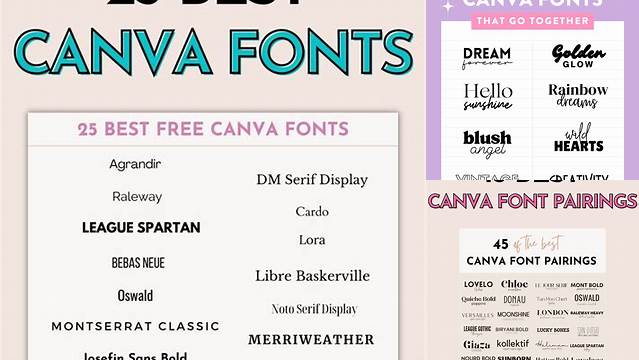
Best Free Canva Font Pairings For Stunning Designs
Hey guys! Choosing the right fonts can feel like a daunting task, especially when you're aiming for that perfect aesthetic in your designs. Canva, being the amazing design platform it is, offers a plethora of fonts, but the real magic happens when you pair them up beautifully. So, let's dive into the world of free Canva fonts and explore some fantastic combinations that will elevate your designs from meh to marvelous!
Why Font Pairing Matters
Font pairing is crucial because it sets the tone and readability of your design. Think of fonts as the voice of your message. You wouldn't want a serious message delivered in a playful font, would you? The right combination creates visual harmony, making your content appealing and easy to digest. A well-paired font combination can establish hierarchy, guide the reader’s eye, and reinforce the overall style and brand identity. Effective font pairing enhances the visual appeal of your design, making it more engaging and professional. When fonts work together harmoniously, they can evoke emotions and connect with the audience on a deeper level. So, it's not just about choosing pretty fonts; it's about creating a visual language that speaks volumes. For instance, pairing a bold, attention-grabbing font for headings with a clean, readable font for body text can create a clear visual hierarchy and improve the overall reading experience. Conversely, poorly paired fonts can clash and create visual dissonance, making your design look unprofessional and confusing. The key is to find fonts that complement each other, creating a cohesive and balanced look. This is why understanding the basics of typography, such as font classifications (serif, sans-serif, script, etc.) and their characteristics, is essential for effective font pairing. By mastering font pairing, you can ensure that your designs not only look visually appealing but also communicate your message effectively.
Understanding Font Classifications
Before we jump into specific pairings, let's quickly go over font classifications. Knowing these basics will make your font-pairing journey much smoother. Understanding font classifications is key to creating visually harmonious designs. Serif fonts, with their small decorative strokes (serifs) at the ends of letterforms, often convey a sense of tradition, authority, and elegance. Think of fonts like Times New Roman or Georgia – they're classic choices that work well in formal contexts and longer texts. Sans-serif fonts, on the other hand, lack these serifs and tend to appear more modern, clean, and minimalist. Arial, Helvetica, and Open Sans are popular examples. They are often favored for digital interfaces and shorter blocks of text because of their readability. Script fonts mimic handwriting and add a touch of personality and flair. These can range from elegant calligraphy to casual brushstrokes. However, script fonts should be used sparingly, mainly for headings or decorative elements, as they can be difficult to read in large blocks of text. Display fonts are designed to be eye-catching and unique, often used for headlines and logos. They come in a wide variety of styles, from bold and impactful to quirky and playful. Like script fonts, display fonts are best used in moderation to make a statement without overwhelming the design. Monospace fonts, where each character takes up the same amount of horizontal space, are often associated with technical and coding contexts. Courier New is a well-known example. While they have a niche use, they're generally not the best choice for general design purposes due to their limited readability in longer texts. By understanding these classifications, you can start to pair fonts that complement each other, creating visually appealing and effective designs. For example, pairing a serif font with a sans-serif font is a classic combination that provides contrast and visual interest. The serif font can be used for headings to draw attention, while the sans-serif font can be used for body text to ensure readability. This approach helps to establish a clear visual hierarchy and makes your content easier to digest.
Top Free Canva Font Pairings
Alright, let’s get to the good stuff! Here are some of my favorite free Canva font pairings that you can start using right away. These combinations are tried, tested, and guaranteed to make your designs pop. When selecting fonts, it's essential to consider the overall mood and message you want to convey. For a classic and professional look, pairing a serif font with a sans-serif font is a reliable choice. For example, Playfair Display (a serif font) paired with Montserrat (a sans-serif font) creates an elegant and readable combination. Playfair Display's sophisticated serifs make it perfect for headings, while Montserrat's clean lines ensure readability in body text. This pairing works well for business documents, invitations, and website content where a formal yet modern touch is desired. If you're aiming for a more modern and minimalist design, try pairing two sans-serif fonts. Oswald and Lato are a fantastic combination for this style. Oswald is bold and impactful, making it ideal for headings, while Lato is clean and versatile, working beautifully for body text and smaller details. This pairing is excellent for tech startups, blog designs, and presentations where clarity and simplicity are key. For a touch of personality and creativity, consider incorporating a script font. However, remember to use script fonts sparingly and pair them with a simple and readable font. Great Vibes (a script font) paired with Raleway (a sans-serif font) offers a beautiful contrast. Great Vibes adds a touch of elegance and flair, perfect for headings or decorative elements, while Raleway ensures the rest of your text remains easily readable. This combination is ideal for wedding invitations, greeting cards, and branding materials where a personal and stylish touch is needed. Another excellent pairing for a modern and readable design is Poppins and Open Sans. Both fonts are sans-serif, but they complement each other perfectly. Poppins is geometric and contemporary, working well for headings, while Open Sans is highly legible and versatile, making it a great choice for body text. This pairing is suitable for a wide range of applications, from website design to marketing materials, where clarity and a clean aesthetic are important. Remember, the best font pairing will depend on the specific design project and the message you want to convey. Experiment with different combinations and trust your eye to find what works best for you. Canva offers a fantastic platform for testing out different fonts, so don't be afraid to try new things and discover your personal favorites.
1. Playfair Display & Montserrat
This is a classic pairing that oozes elegance and readability. Playfair Display is a beautiful serif font that's perfect for headings, while Montserrat, a clean sans-serif, works wonderfully for body text. Think magazine layouts or sophisticated website designs – this combo is a winner. The Playfair Display and Montserrat pairing is a testament to the timeless appeal of combining a serif font with a sans-serif font. Playfair Display, with its high contrast and elegant serifs, exudes sophistication and is best used for headings and titles to capture attention. Its distinct character makes it ideal for designs that require a touch of class, such as wedding invitations, book covers, or luxury brand materials. On the other hand, Montserrat is a clean, modern sans-serif font that offers excellent readability, making it perfect for body text and smaller details. Its geometric design and even spacing ensure that the text is easy to read, even at smaller sizes. Together, Playfair Display and Montserrat create a visual hierarchy that guides the reader's eye, ensuring that the design is both visually appealing and easy to navigate. This pairing works exceptionally well in designs where a balance between elegance and readability is crucial. For example, in a website design, Playfair Display can be used for the main headings and call-to-action buttons, while Montserrat can be used for the body text and navigation menu. Similarly, in a print design, such as a brochure or a magazine, Playfair Display can be used for the main headlines, while Montserrat can be used for the article text and captions. The versatility of this pairing makes it a go-to choice for designers looking to create a polished and professional look. Moreover, the contrast between the serif and sans-serif fonts adds visual interest and prevents the design from looking monotonous. Playfair Display's decorative serifs bring a touch of tradition and sophistication, while Montserrat's clean lines provide a modern and minimalist contrast. This balance is key to creating a design that is both timeless and contemporary. In summary, the Playfair Display and Montserrat font pairing is a reliable choice for designers who want to create elegant and readable designs. Its versatility and visual appeal make it suitable for a wide range of applications, from web design to print materials. By leveraging the strengths of both fonts, designers can create a harmonious and visually striking design that effectively communicates the intended message.
2. Oswald & Lato
For a more modern and minimalist vibe, try Oswald and Lato. Oswald is bold and impactful, great for headings, while Lato is a super readable sans-serif perfect for body text. This pairing is sleek and professional. The Oswald and Lato pairing is a popular choice for designers aiming for a modern and professional aesthetic. Oswald, a bold sans-serif font, commands attention and is ideally suited for headings and titles. Its strong, geometric forms make it highly visible and impactful, ensuring that your main message stands out. Oswald's assertive character brings a sense of confidence and modernity to any design, making it a great option for businesses and brands that want to project a strong image. In contrast, Lato is a highly readable sans-serif font designed with clarity and versatility in mind. Its open forms and balanced letter shapes make it easy to read in a variety of contexts, from body text to captions and small details. Lato's neutral and friendly appearance ensures that it doesn't distract from the main message, while still maintaining a professional look. When paired together, Oswald and Lato create a harmonious balance between visual impact and readability. Oswald's boldness draws the eye, while Lato provides a comfortable reading experience, ensuring that the content is both engaging and accessible. This combination is particularly effective in digital designs, such as websites and presentations, where readability is paramount. For instance, on a website, Oswald can be used for the main headings and section titles, while Lato can be used for the body text, navigation menu, and other supporting elements. This creates a clear visual hierarchy and guides the user through the content effectively. Similarly, in a presentation, Oswald can be used for the slide titles and key points, while Lato can be used for the body text and bullet points, ensuring that the information is conveyed clearly and concisely. The Oswald and Lato pairing is also a versatile choice for print materials, such as brochures, flyers, and posters. Its clean and modern look makes it suitable for a wide range of industries and applications, from tech startups to corporate branding. The contrast between the bold Oswald and the readable Lato ensures that the design is both visually appealing and easy to digest. In summary, the Oswald and Lato font pairing is a reliable option for designers who want to create a modern and professional look. Its balance of impact and readability makes it suitable for a variety of projects, ensuring that your message is communicated effectively and stylishly.
3. Great Vibes & Raleway
Want to add a touch of elegance? Great Vibes is a beautiful script font that pairs perfectly with the clean sans-serif Raleway. Use Great Vibes for headings or special callouts and Raleway for the body. The Great Vibes and Raleway pairing is an excellent choice for designs that aim to blend elegance with readability. Great Vibes, a charming script font, exudes sophistication and is best used sparingly for headings, subheadings, or special callouts. Its flowing strokes and elegant letterforms bring a touch of personality and grace to any design, making it particularly well-suited for invitations, greeting cards, and branding materials that require a personal touch. However, because script fonts can be difficult to read in large blocks of text, it's essential to pair them with a highly legible font for body text. This is where Raleway comes in. Raleway is a clean and modern sans-serif font that offers excellent readability in a variety of contexts. Its geometric design and even spacing make it easy to read, even at smaller sizes. Raleway's versatility allows it to work well in both body text and headings, but it truly shines when paired with a more decorative font like Great Vibes. When combined, Great Vibes and Raleway create a beautiful contrast that captures the eye while ensuring the content remains easily accessible. The elegant script of Great Vibes adds a touch of flair, while the clean lines of Raleway provide a solid foundation of readability. This pairing is particularly effective in wedding invitations, where Great Vibes can be used for the names of the couple and other key details, while Raleway can be used for the event details and other information. Similarly, in branding materials, Great Vibes can be used for a logo or tagline, while Raleway can be used for the body text and other marketing content. The Great Vibes and Raleway pairing is also a great option for websites and blogs that want to convey a sense of elegance and professionalism. Great Vibes can be used for headings and titles, while Raleway can be used for the body text and navigation menu. This creates a cohesive and visually appealing design that is both inviting and easy to navigate. In summary, the Great Vibes and Raleway font pairing is a versatile choice for designers who want to balance elegance with readability. Its sophisticated yet approachable style makes it suitable for a wide range of applications, from print materials to digital designs. By leveraging the strengths of both fonts, designers can create a harmonious and visually striking design that effectively communicates the intended message.
4. Poppins & Open Sans
This pairing is a match made in heaven for modern, clean designs. Both are sans-serif, but Poppins brings a geometric flair, perfect for headings, while Open Sans is incredibly versatile and readable, ideal for body text. The Poppins and Open Sans font pairing is a stellar combination for contemporary designs that prioritize clarity and readability. Poppins, a geometric sans-serif font, brings a modern and stylish touch to any project. Its clean lines and balanced letterforms make it an excellent choice for headings and titles, ensuring your message stands out with sophistication. Poppins' geometric structure gives it a distinct personality, making it ideal for brands that want to convey a sense of innovation and modernity. Paired with Open Sans, a highly versatile and legible sans-serif font, this combination offers a harmonious balance that enhances the overall visual appeal. Open Sans is designed with readability in mind, featuring open forms and a neutral appearance that makes it perfect for body text, captions, and other detailed content. Its clean and unobtrusive design ensures that the focus remains on the message, making it a reliable choice for a wide range of applications. The synergy between Poppins and Open Sans creates a visual hierarchy that guides the reader's eye seamlessly through the design. Poppins draws attention with its modern flair, while Open Sans provides a comfortable reading experience, ensuring the content is both engaging and accessible. This pairing is particularly effective for digital platforms, such as websites, mobile apps, and presentations, where readability is paramount. For example, on a website, Poppins can be used for main headings, section titles, and call-to-action buttons, while Open Sans can be used for body text, navigation menus, and form labels. This creates a cohesive and user-friendly design that enhances the overall user experience. In print materials, such as brochures and flyers, the Poppins and Open Sans combination maintains its effectiveness. Poppins can be used for headlines and key points, while Open Sans ensures that the body text remains easy to read. This pairing is also a popular choice for branding materials, where a clean and modern look is essential. From logos to business cards, Poppins and Open Sans offer a professional and polished appearance that conveys credibility and style. In summary, the Poppins and Open Sans font pairing is a reliable and versatile option for designers seeking a modern and readable aesthetic. Its balance of style and clarity makes it suitable for a wide range of projects, ensuring that your message is communicated effectively and stylishly.
Tips for Pairing Fonts in Canva
Okay, now that you have some pairings in mind, here are a few tips to make your font-pairing process even smoother in Canva. Mastering font pairing in Canva can significantly enhance the visual appeal and effectiveness of your designs. Here are some tips to help you pair fonts like a pro. Firstly, contrast is key. Look for fonts that are different enough to create visual interest but similar enough to maintain harmony. This often means pairing a serif font with a sans-serif font, but it can also involve using fonts with different weights or styles within the same family. For example, pairing a bold font with a light font can create a striking contrast that draws the eye. Secondly, consider the hierarchy. The fonts you choose should help guide the reader through your design. Use a bolder or more decorative font for headings and a simpler, more readable font for body text. This helps to establish a clear visual structure and makes the content easier to digest. Think of the heading font as the title of a chapter and the body text font as the main content – they should work together to tell a cohesive story. Thirdly, limit the number of fonts. As a general rule, stick to two or three fonts in a design. Too many fonts can create visual clutter and make your design look unprofessional. By limiting your font choices, you create a more cohesive and polished look. This doesn't mean you can't experiment with different weights and styles within those fonts, but keeping the overall number low ensures a cleaner design. Fourthly, test for readability. While a font pairing may look good, it's crucial to ensure that the text is easy to read, especially in body text. Consider the size, spacing, and contrast of your fonts to ensure that the text is legible. A beautiful font pairing is useless if the content can't be easily read. Fifthly, use font pairing resources. Canva and other design platforms often provide font pairing suggestions or pre-made templates that feature well-matched fonts. Take advantage of these resources to get inspiration and learn which fonts work well together. Many websites and blogs also offer font pairing guides and tips, providing valuable insights into the art of typography. Sixthly, align fonts with your brand. Your font choices should reflect your brand's personality and values. If your brand is modern and minimalist, opt for clean sans-serif fonts. If your brand is traditional and elegant, consider serif fonts. Your font choices should be consistent across all your designs to help build brand recognition and reinforce your brand identity. Seventhly, don't be afraid to experiment. While there are guidelines to follow, the best way to learn font pairing is to experiment and see what works best for your designs. Try different combinations, adjust sizes and weights, and trust your eye. Design is a creative process, and sometimes the most unexpected pairings can be the most effective. By following these tips, you can master font pairing in Canva and create designs that are both visually appealing and effective.
- Use the Font Combination Tool: Canva has a nifty tool that suggests font pairings. Look for it in the font selection menu – it’s a lifesaver! Using the Font Combination Tool in Canva is like having a personal typography assistant right at your fingertips. This feature simplifies the font pairing process by suggesting combinations that have been carefully curated by design experts. To access this tool, simply click on the text element you want to style, then navigate to the font dropdown menu. Within this menu, you'll find the